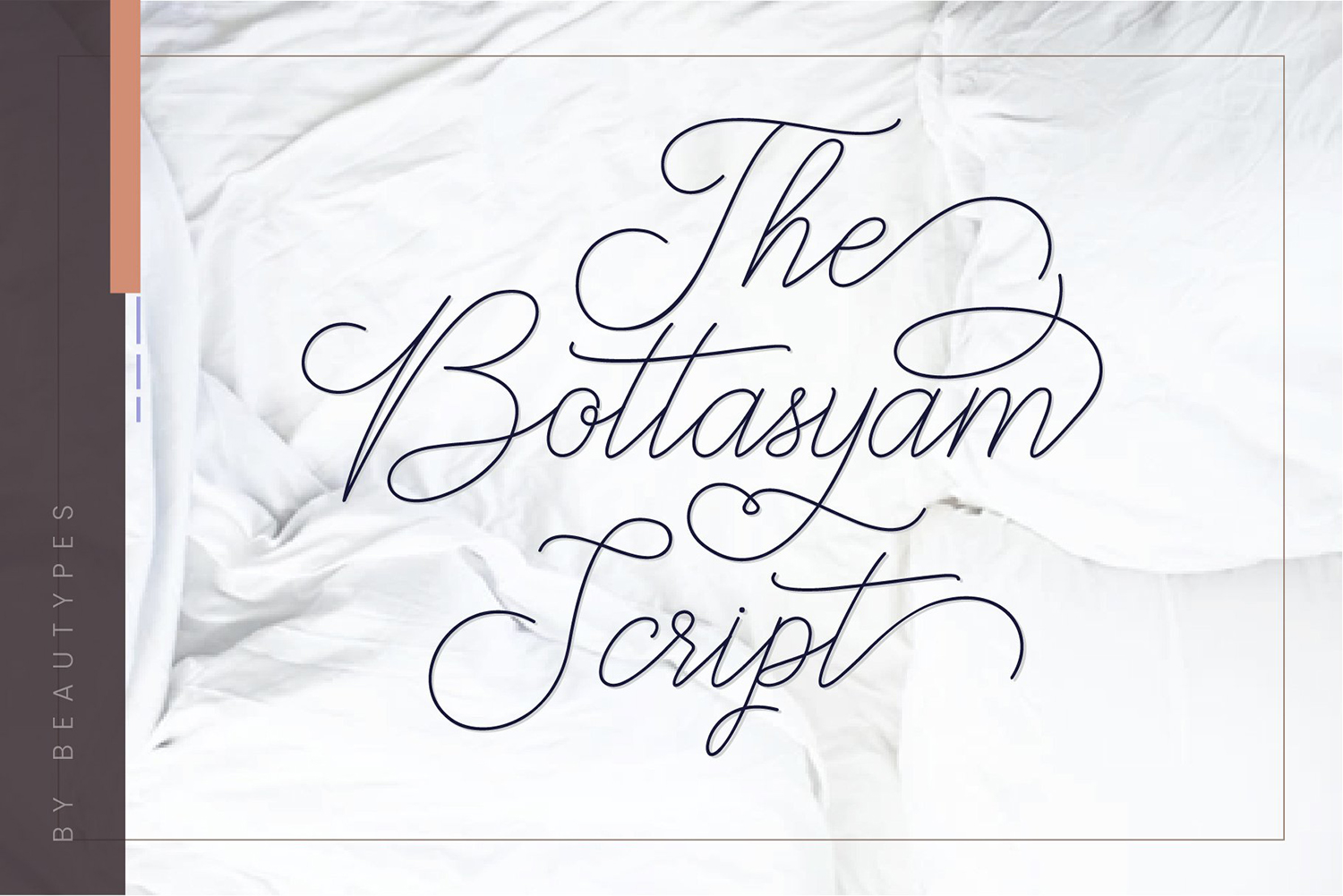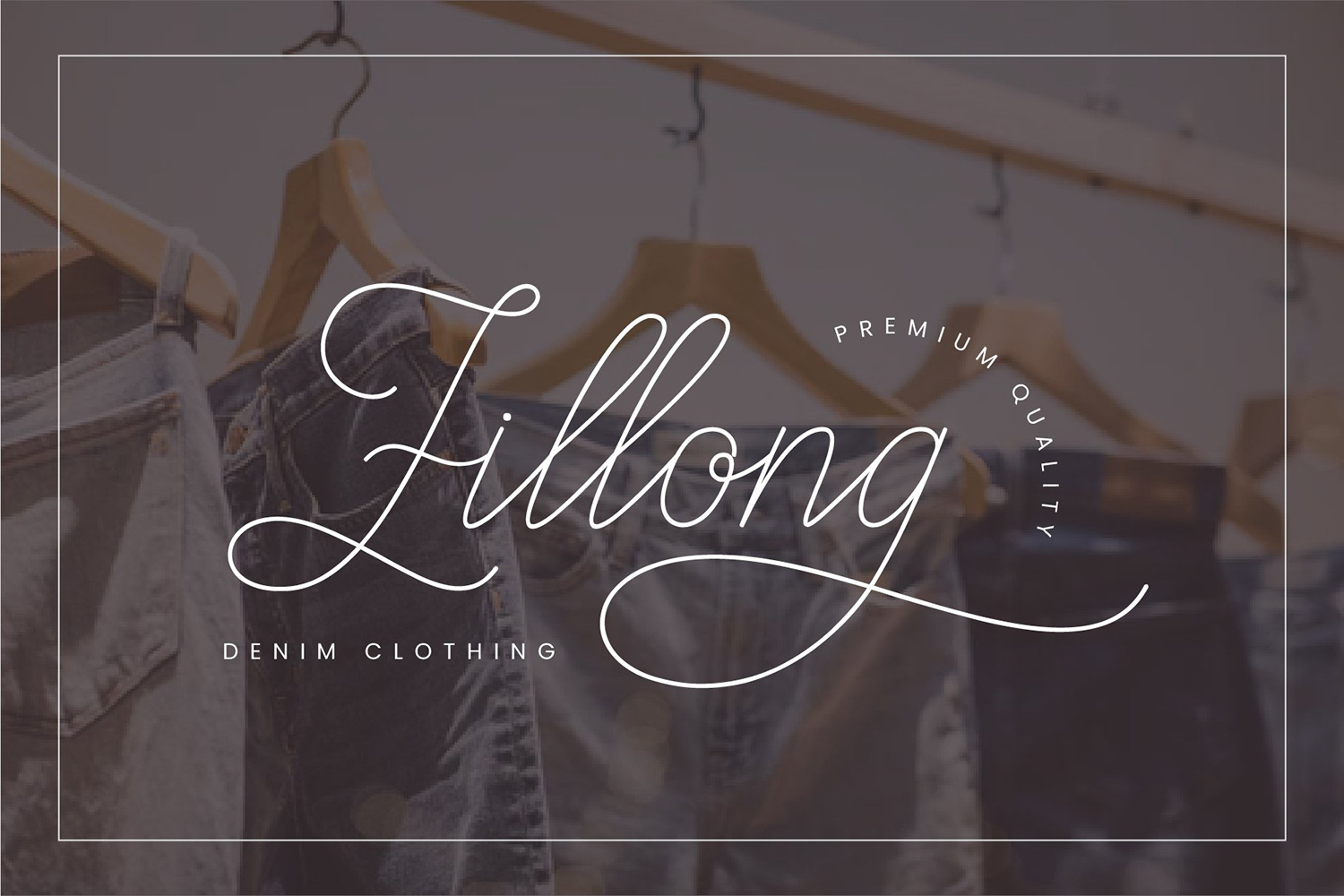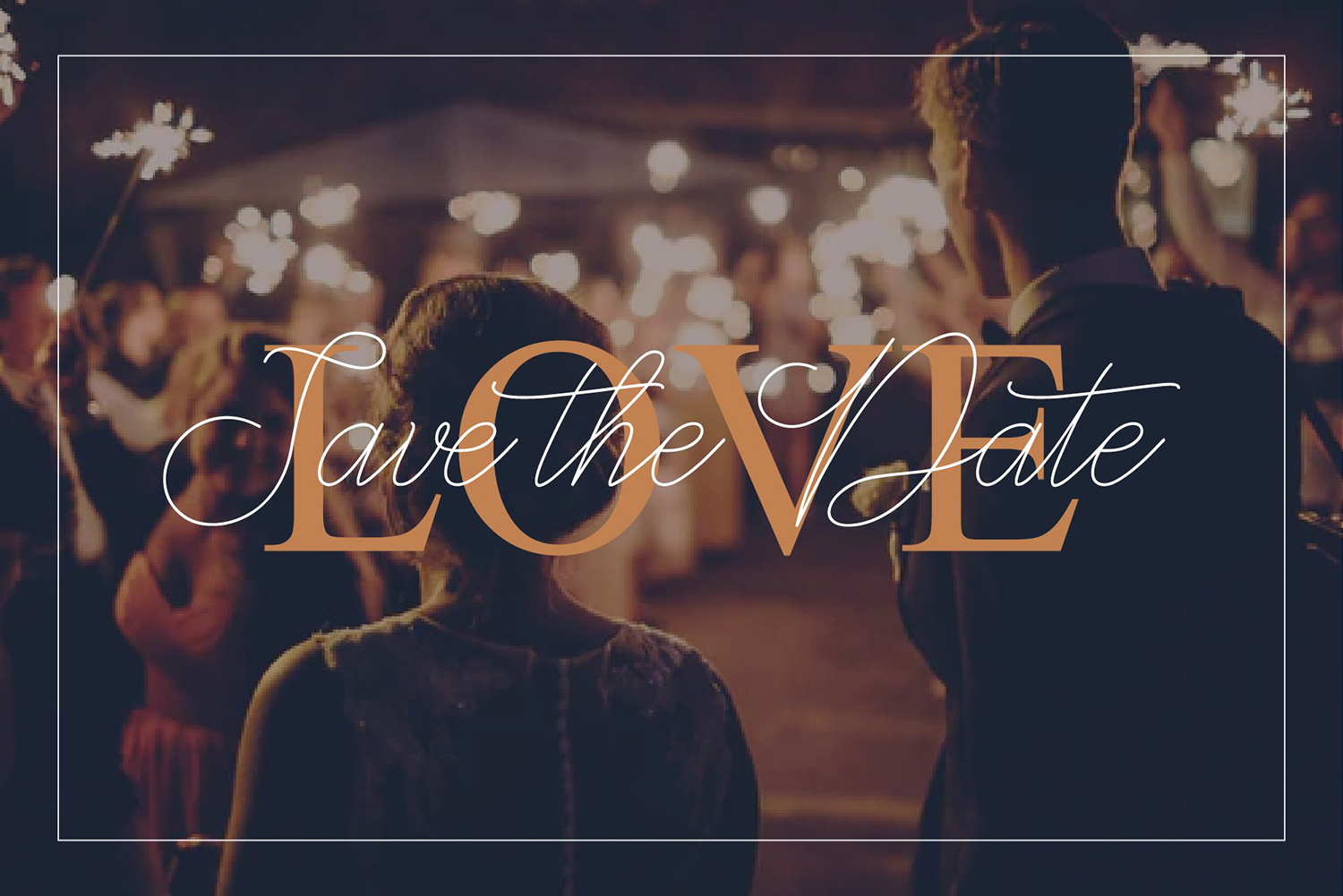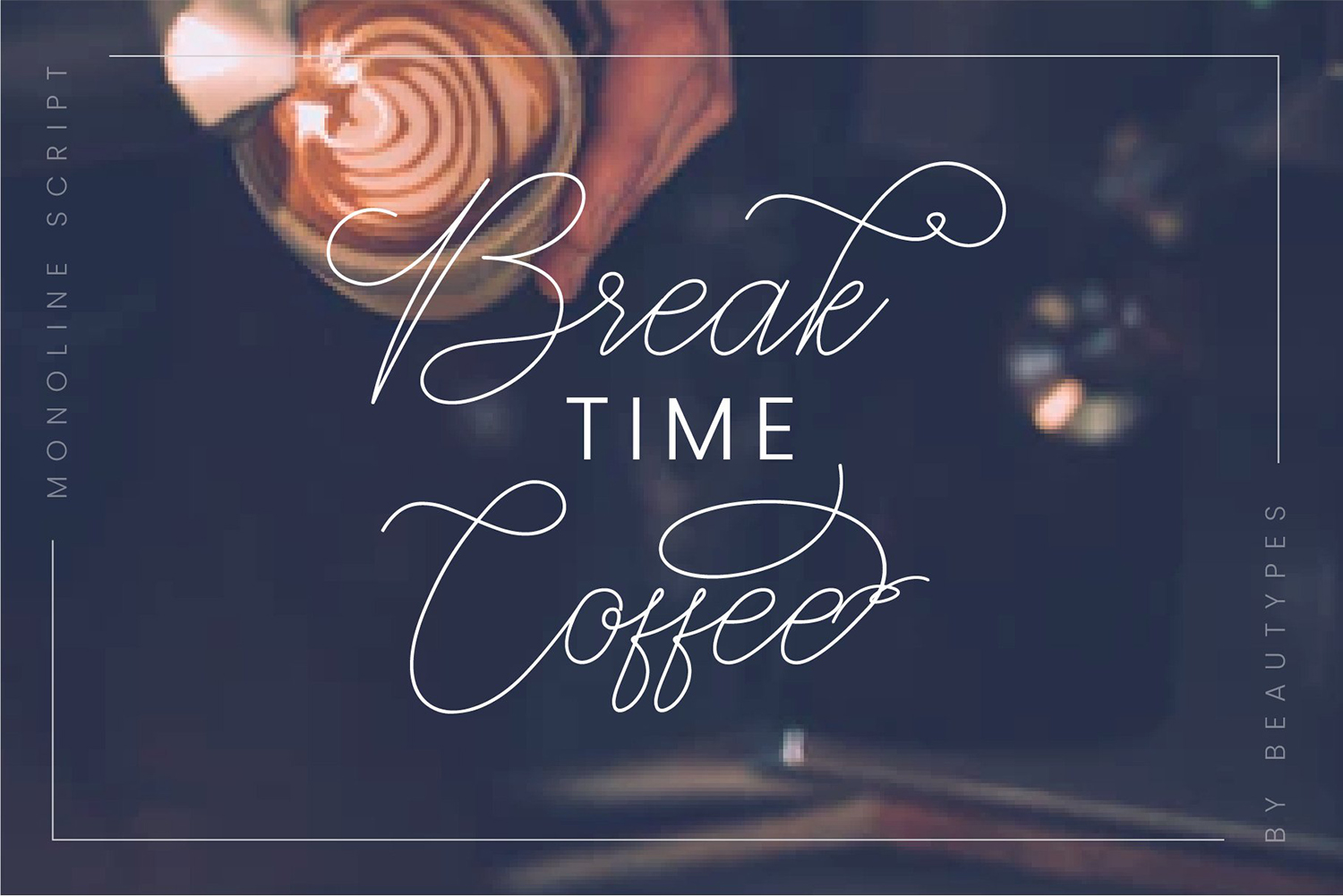
Abbassy Script Free Font
Abbassy Script Free Font is a striking and bold handwritten font with a timeless allure, infusing a distinctive touch into every design project. This free typeface was designed by a talentedΒ Beautypes Studio. If you like it don’t forget to check out the full version.